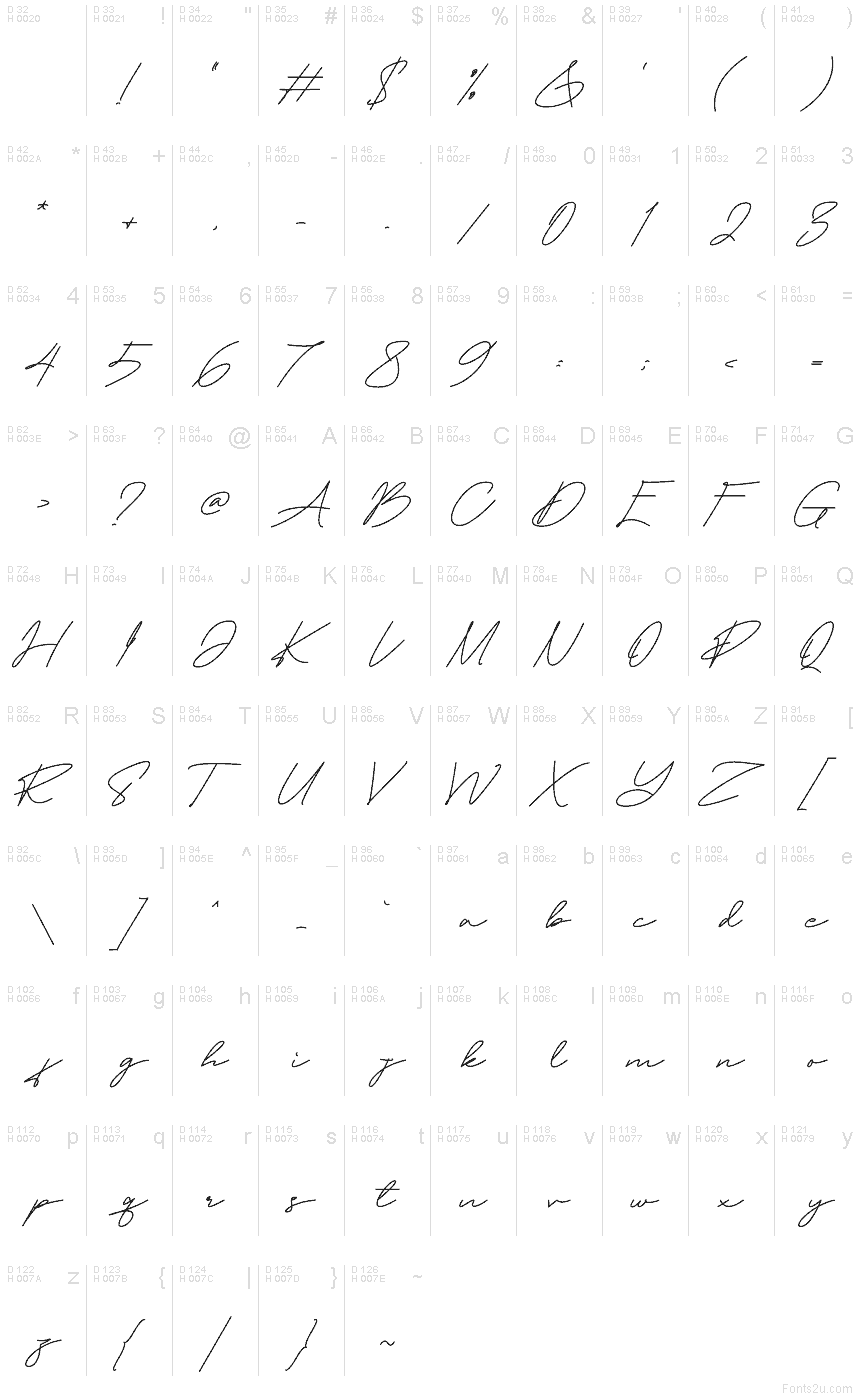
Santrome
Santrome font by Jadatype is a free light monoline handwritten script font. Built around a breezy, continuous line, it glides with a gentle rightward slant and elegant, unhurried loops. The strokes feel like fine ink on smooth paper—crisp, thin, and evenly spaced—giving it a refined “signature” presence without looking stiff or overpolished.
Using Santrome, your branding and titles get a whispery sophistication that shines on boutique logos, product packaging, invitation suites, social media quotes, watermark signatures, and fashion lookbooks. This free font’s airy rhythm keeps small blocks readable while its long, flowing connections bring cohesion at display sizes. Pair it with a clean sans for body copy, and give it a touch of extra tracking when used large to accentuate its graceful sweep.